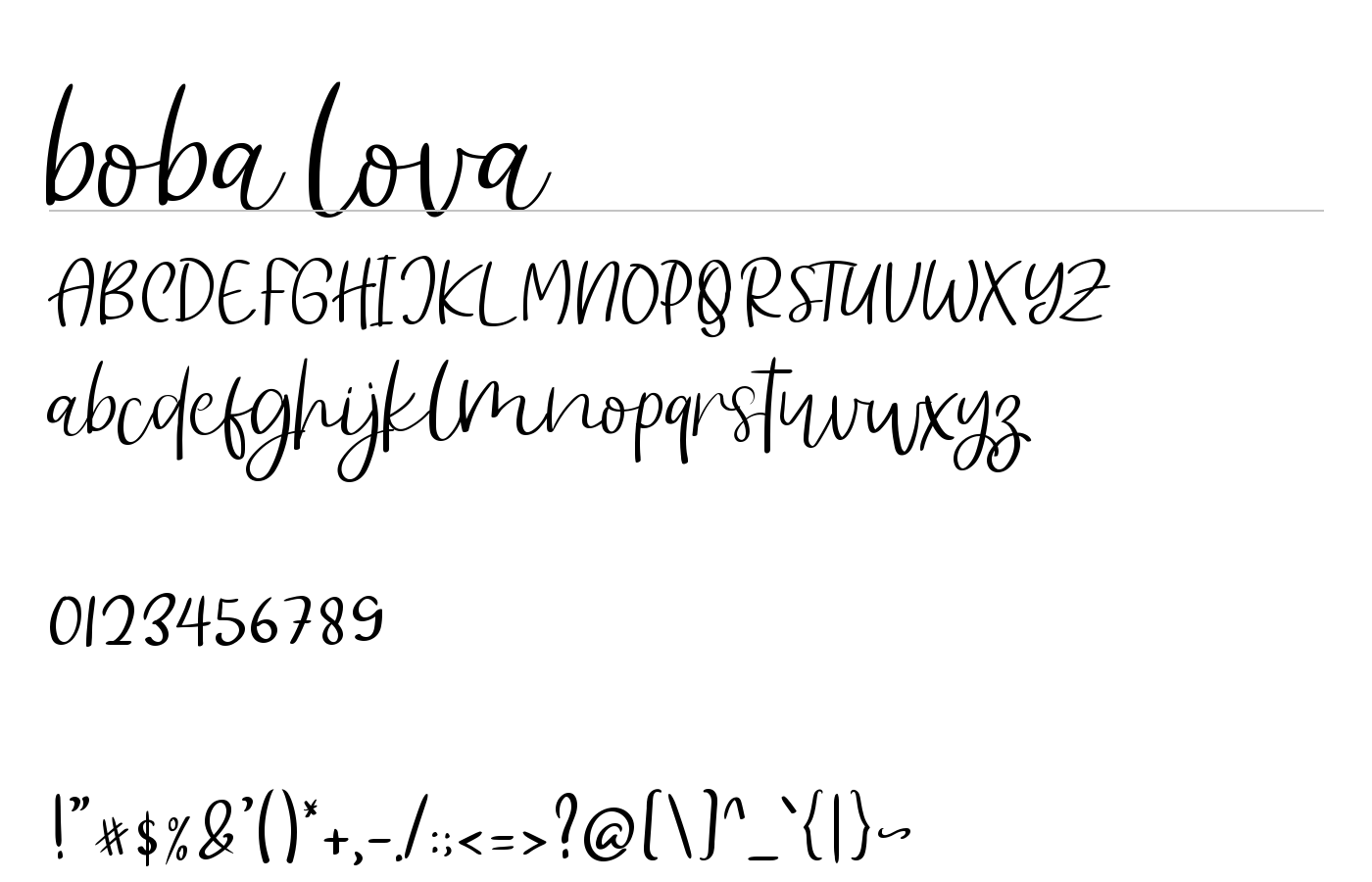
Boba lova is a playful and elegant handwritten script font characterized by its thin, flowing strokes and casual yet refined letterforms. With its naturally curved shapes, light weight, and smooth, slightly whimsical style, it brings a friendly and approachable feel that works wonderfully for creative projects, personal branding, and stylish invitations. This font shines in designs that need a warm and charming touch without sacrificing readability.
boba lova Font